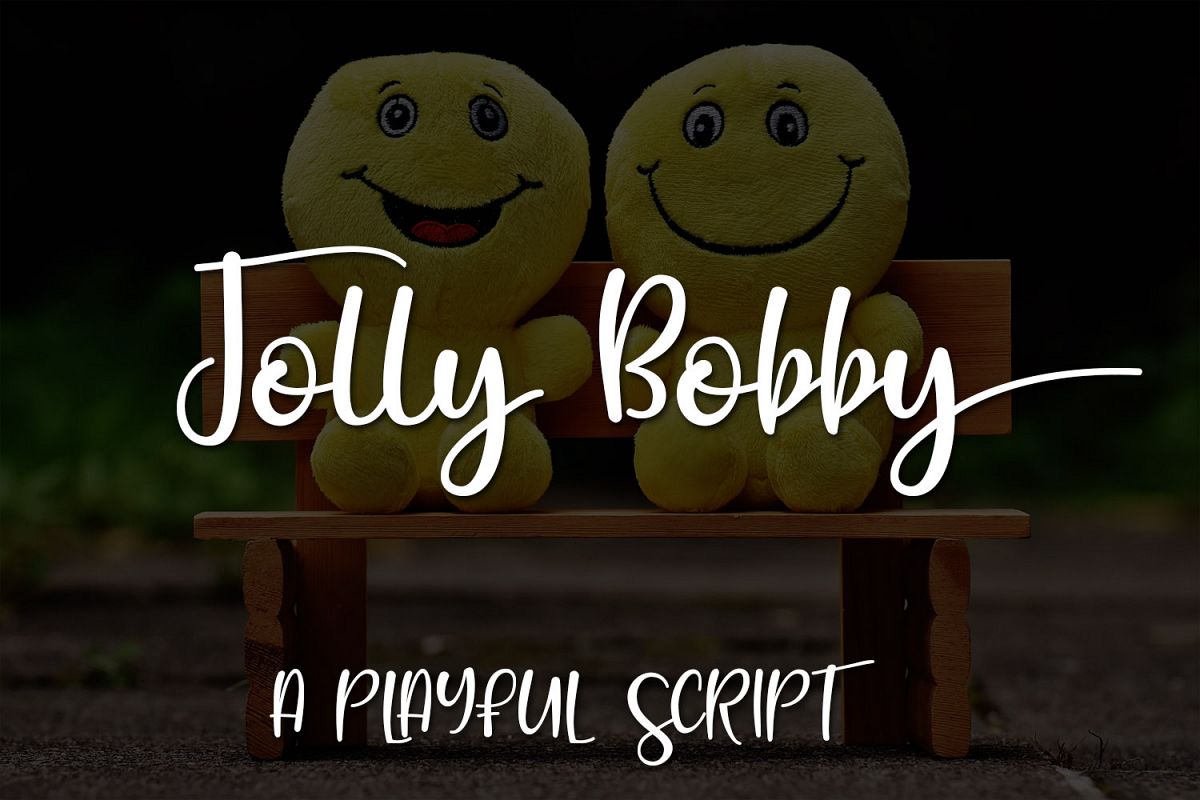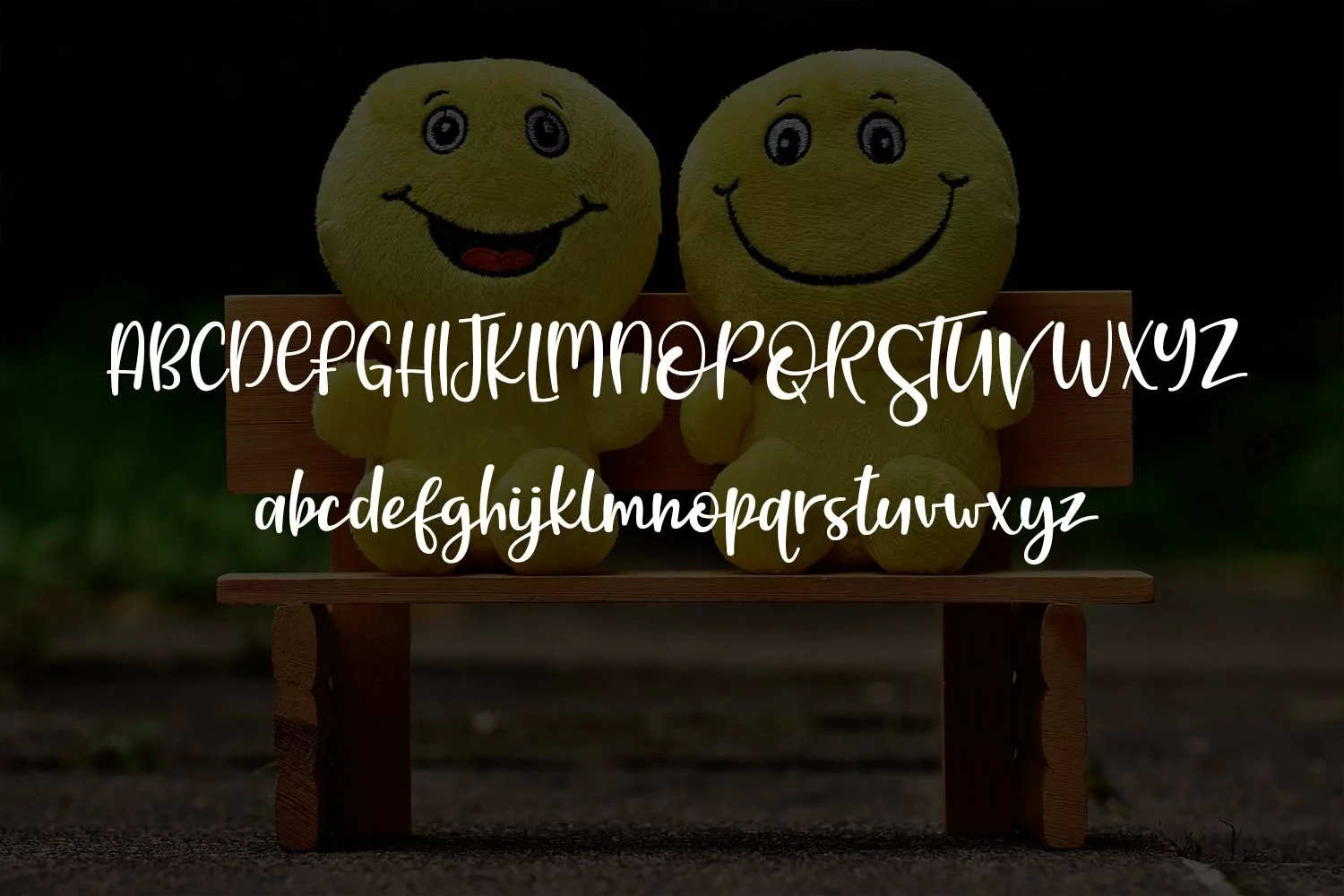
Introducing Jolly Bobby!
A playful and relaxed script font with language support and stylistic alternates. Perfect for apparel, invitations, posters, and anything else that requires a laid-back casual script font.